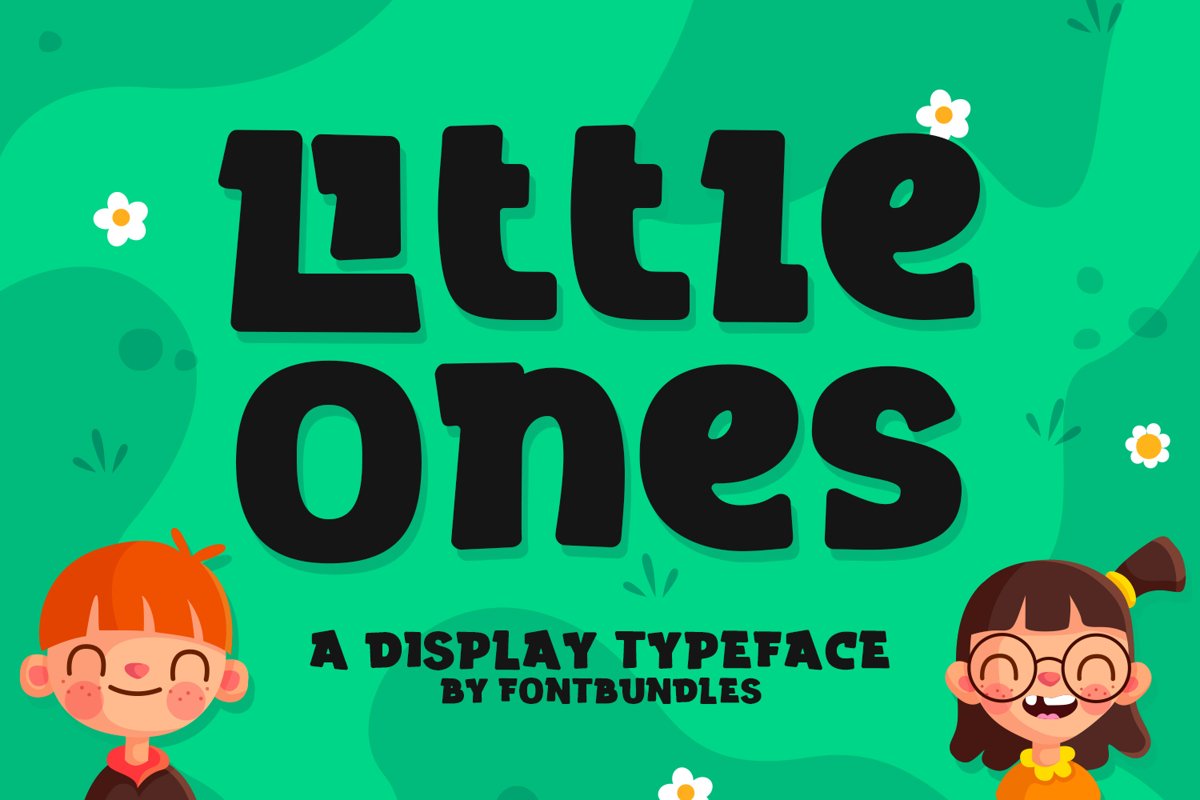
Little Ones is a cute display typeface. perfect for poster, logo, namecard, badges, birthday party needs, kid posters, quotes, packaging, logo and many more.